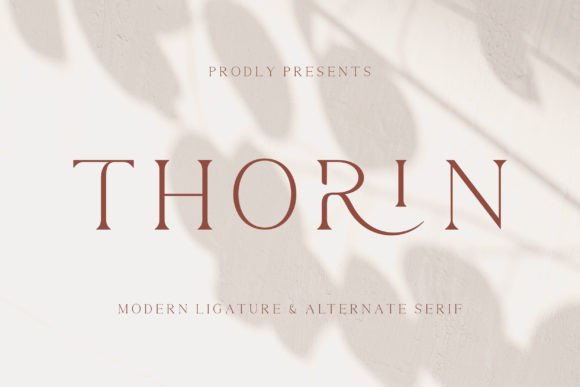
Thorin Font: A Modern and Stylish Serif Font for Elegant Designs
In the world of typography, fonts play a crucial role in conveying the tone and personality of a brand or design. Among the numerous fonts available, the Thorin font stands out for its modern and stylish serif design. This elegant and versatile font has gained popularity among designers and brands looking for a sophisticated and professional look. In this article, we’ll explore the features, benefits, and uses of the Thorin font, and why it’s an excellent choice for a wide range of design projects.
What is Thorin Font?
Thorin is a modern serif font designed to provide an elegant and sophisticated look to various design projects. Its sleek lines, refined curves, and balanced proportions make it an ideal choice for designs that require a touch of luxury and professionalism. The font’s versatility allows it to be used in a wide range of applications, from logos and branding to headings, and even body text.
Key Features of Thorin Font
- Modern and Stylish Design: Thorin font boasts a modern and stylish serif design that sets it apart from traditional serif fonts.
- Elegant and Versatile: The font’s elegant and versatile nature makes it suitable for a wide range of design projects, from luxury brands to creative designs.
- High Readability: Thorin font is designed to be highly readable, making it perfect for body text, headings, and titles.
- Wide Range of Applications: The font can be used in various design projects, including logos, branding, packaging, posters, and digital media.
Benefits of Using Thorin Font
The Thorin font offers several benefits to designers and brands, including:
- Unique and Sophisticated Look: Thorin font provides a unique and sophisticated look that helps brands stand out from the competition.
- Improved Readability: The font’s high readability ensures that the text is easy to read, even at small font sizes.
- Ease of Use: Thorin font is easy to use and can be integrated into various design projects, including print and digital media.
- Flexibility: The font’s versatility allows it to be used in a wide range of design projects, from minimalist designs to complex layouts.
Examples of Thorin Font in Use
The Thorin font can be used in various design projects, including:
- Logo Design: Thorin font is perfect for creating sophisticated and elegant logos that convey a sense of luxury and professionalism.
- Branding: The font can be used to create a consistent brand identity across various marketing materials, including business cards, brochures, and website headers.
- Packaging Design: Thorin font can be used to create eye-catching packaging designs that stand out on store shelves.
- Poster Design: The font is suitable for creating elegant and sophisticated posters for events, exhibitions, and advertising campaigns.
Tips for Using Thorin Font
To get the most out of the Thorin font, follow these tips:
- Use it Sparingly: Use the font sparingly to create a sense of luxury and sophistication.
- Pair it with Other Fonts: Pair Thorin font with other fonts to create a unique and visually appealing design.
- Adjust Font Size and Style: Adjust the font size and style to suit the design project and ensure high readability.
- Experiment with Colors: Experiment with different colors to find the perfect combination that complements the font.
In conclusion, the Thorin font is a modern and stylish serif font that offers elegance, versatility, and sophistication to various design projects. Its high readability, wide range of applications, and ease of use make it an excellent choice for designers and brands looking for a professional and luxurious look. By following the tips outlined in this article, designers can get the most out of the Thorin font and create stunning designs that leave a lasting impression.